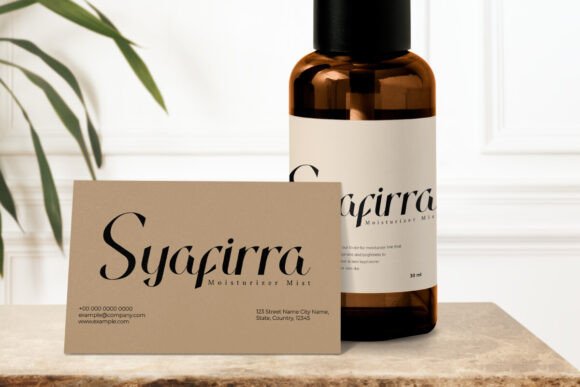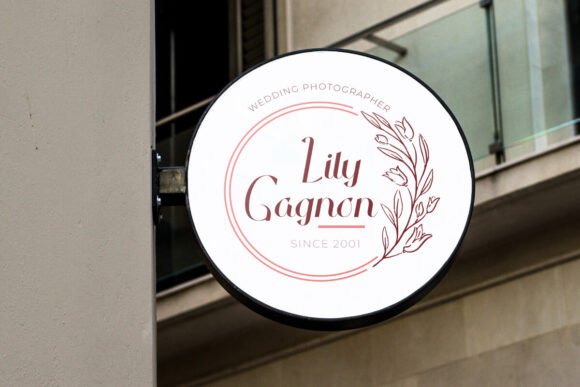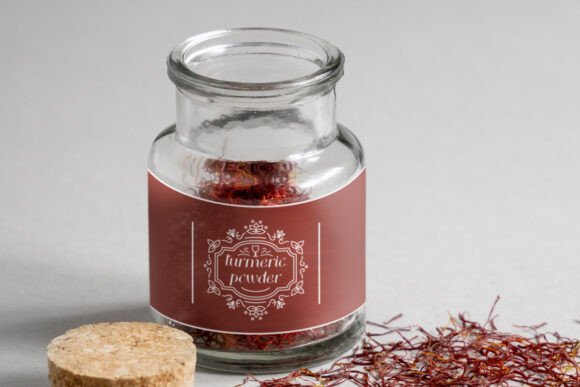
Introduction to Paradise Plums Font
Have you ever been working on a creative project and suddenly, a spark of inspiration hits you? Maybe it’s the perfect phrase, a burst of color, or a unique font that brings everything together. For designers, that ‘aha’ moment is what makes all the hard work worth it. And, we’re excited to share with you a new addition to your design resource arsenal – the enchanting Paradise Plums Font.
Developed by NoahType, this flowery script display font is a true gem. With its eye-catching shape and delicate embellishments, it’s the perfect choice for adding a touch of elegance to any design. Whether you’re working on an advertisement, a beauty product label, or a wedding invitation, the Paradise Plums Font is sure to leave a lasting impression.
Key Features of Paradise Plums Font
- Unique, hand-drawn style with a transparent background, allowing for seamless integration into various designs.
- Perfect for use in graphic design, digital art, and other creative endeavors, offering a touch of elegance and sophistication.
- Unique characteristics: Includes custom-designed ligatures, swashes, and flourishes, adding an extra layer of depth and personality to designs.
Honest Review: Paradise Plums Font
I recently came across the Paradise Plums Font, and I must say, it’s been a delightful addition to my design resource collection. The font is perfect for any creative project that requires a touch of whimsy and elegance.
What works well: ✨ The Paradise Plums Font features a beautiful, hand-drawn design that exudes a sense of sophistication. The high-quality glyphs are well-crafted and display crisp lines, making it ideal for print materials, branding, and web design.
What I like most about this font is its versatility. It’s suitable for a wide range of applications, from children’s books to wedding invitations. The transparent background allows for seamless integration into various design environments.
However, I do have a few concerns: ⚠️ The font might be too ornate for some projects, which could lead to readability issues if not used carefully. Additionally, the font family is not extensive, which may limit its use in complex design projects.
Overall, I’m impressed with the Paradise Plums Font. It’s a great design resource for anyone looking to add a touch of elegance and sophistication to their creative project. With its high-quality design and versatility, it’s definitely worth considering for your next design project.
Tips for Getting the Most Out of Paradise Plums Font
Use the font in combination with a transparent background to create a high-quality design. Experiment with different font sizes and styles to find the perfect look for your creative project.
Paradise Plums Font is perfect for creating invitations, posters, and other design elements for your creative project. You can also use it to add a touch of elegance to your website or social media graphics.
Alternatives to Paradise Plums Font
Pacifico Font is a beautiful, elegant script font that is perfect for creative projects that require a touch of sophistication. It features a high-quality design with a transparent background, making it ideal for use on any design resource. Use Pacifico Font for wedding invitations, baby shower decorations, or any other occasion where you want to add a romantic touch.
Pacifico Font compares to Paradise Plums Font in its elegant and refined design, but it has a more subtle and classic feel. While Paradise Plums Font is more playful and whimsical, Pacifico Font is more understated and sophisticated.
Great Vibes Font is a fun, modern script font that is perfect for creative projects that require a lively and energetic feel. It features a high-quality design with a transparent background, making it ideal for use on any design resource. Use Great Vibes Font for social media graphics, advertising materials, or any other occasion where you want to add a fun and playful touch.
Does Paradise Plums Font have a transparent background?
Yes, Paradise Plums Font has a transparent background, making it ideal for use in designs with complex backgrounds or layering. The transparent background also allows you to easily combine the font with other design elements.
What is the recommended resolution for using Paradise Plums Font?
For high-quality results, we recommend using Paradise Plums Font at a resolution of 300 DPI (dots per inch) or higher. This ensures that the font appears crisp and clear in your designs, even when scaled up or down.